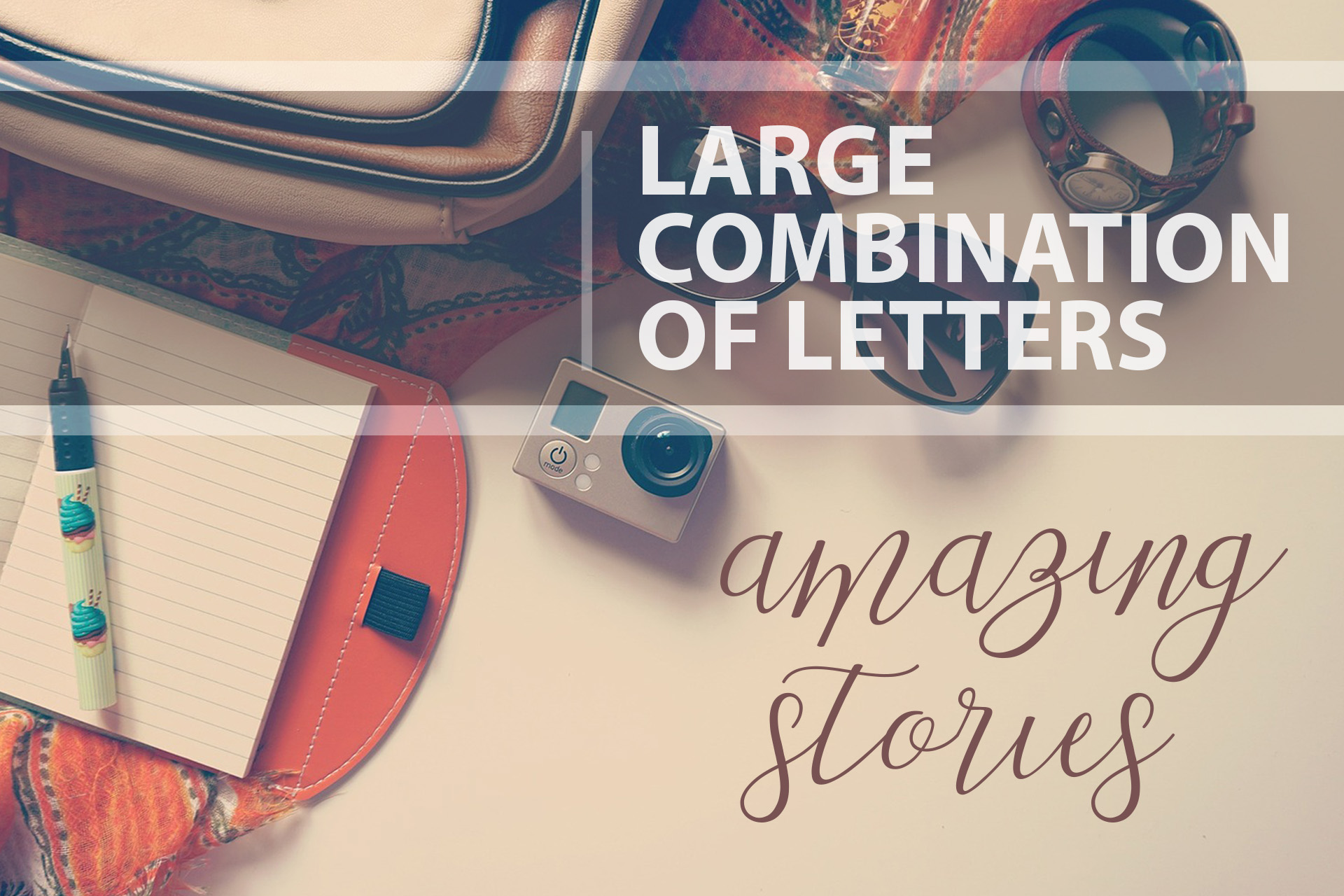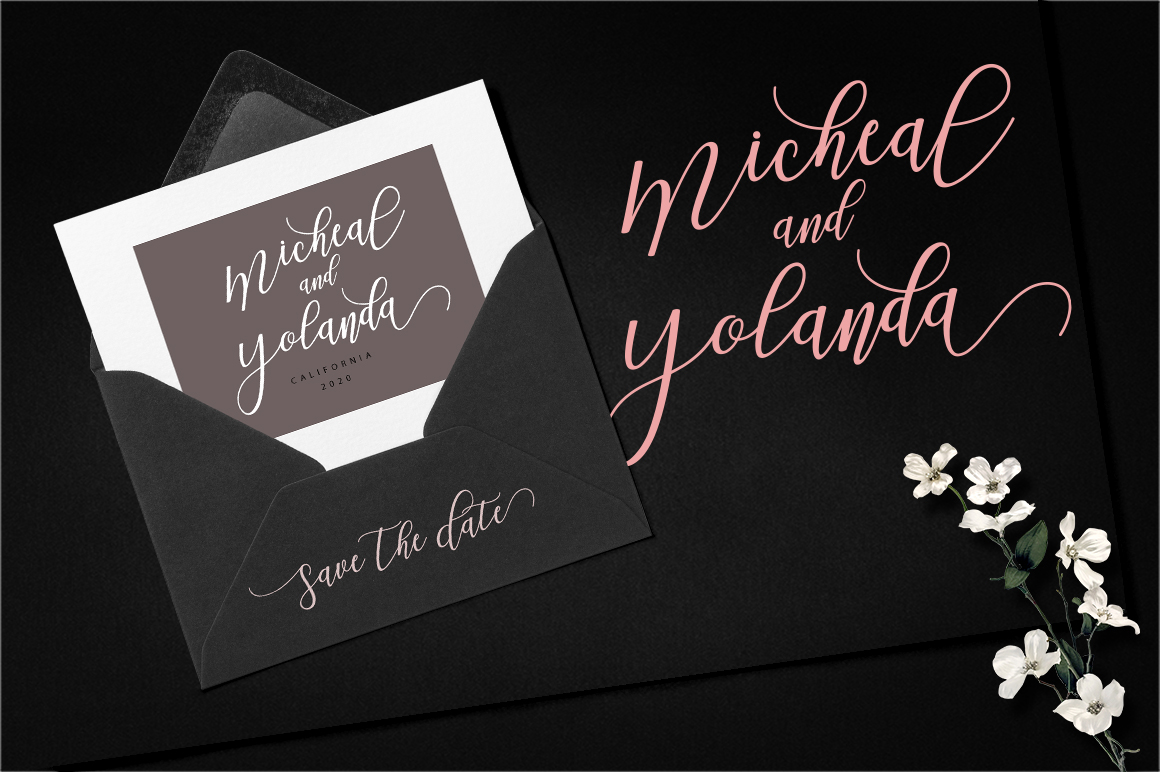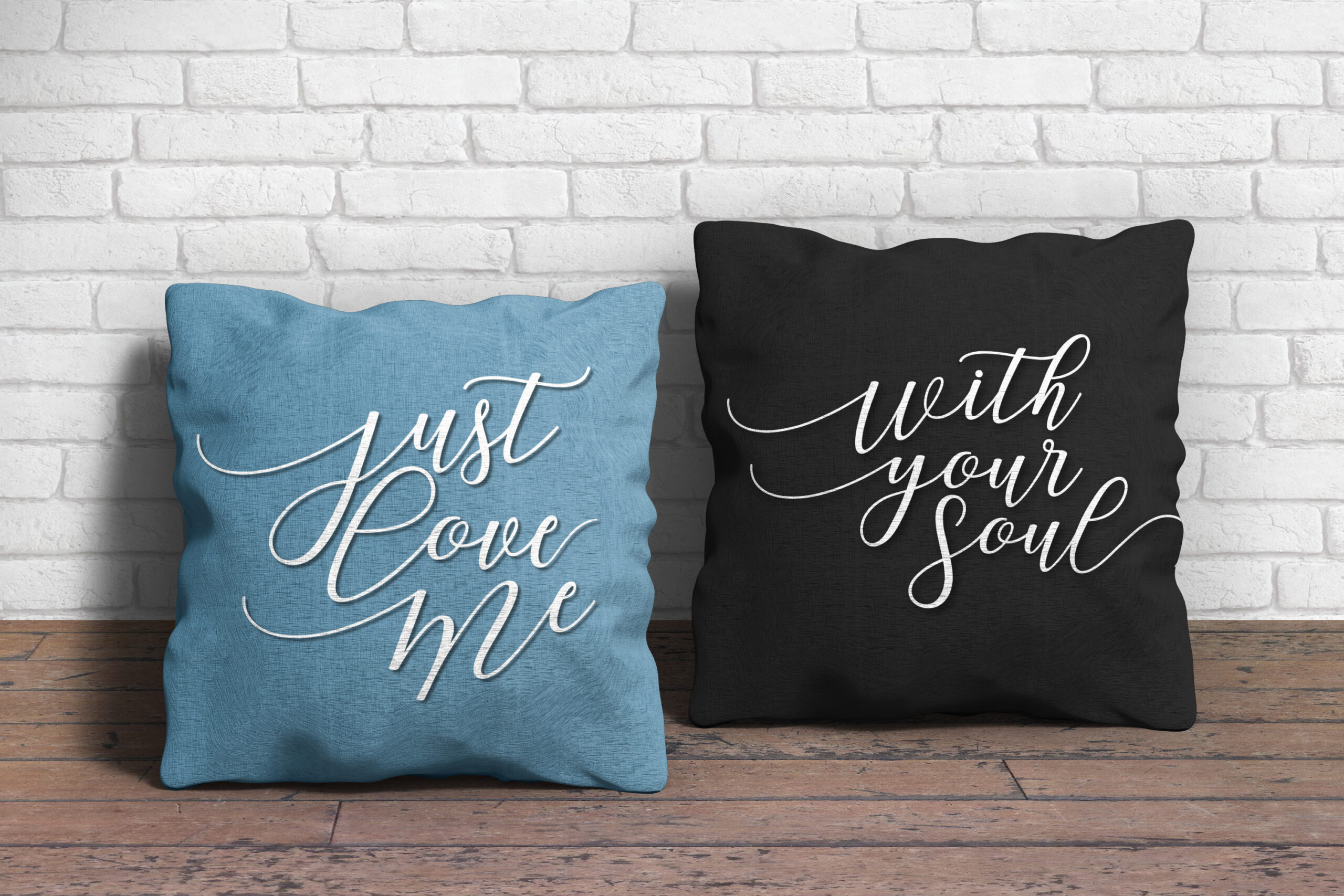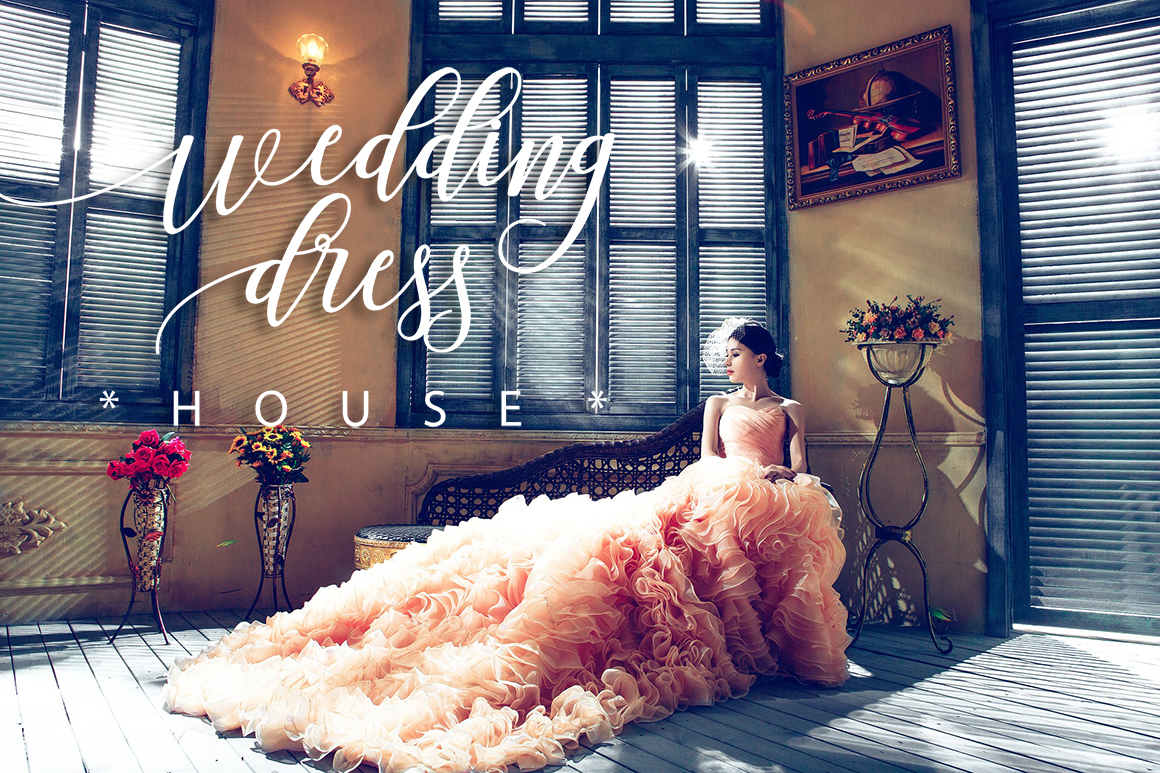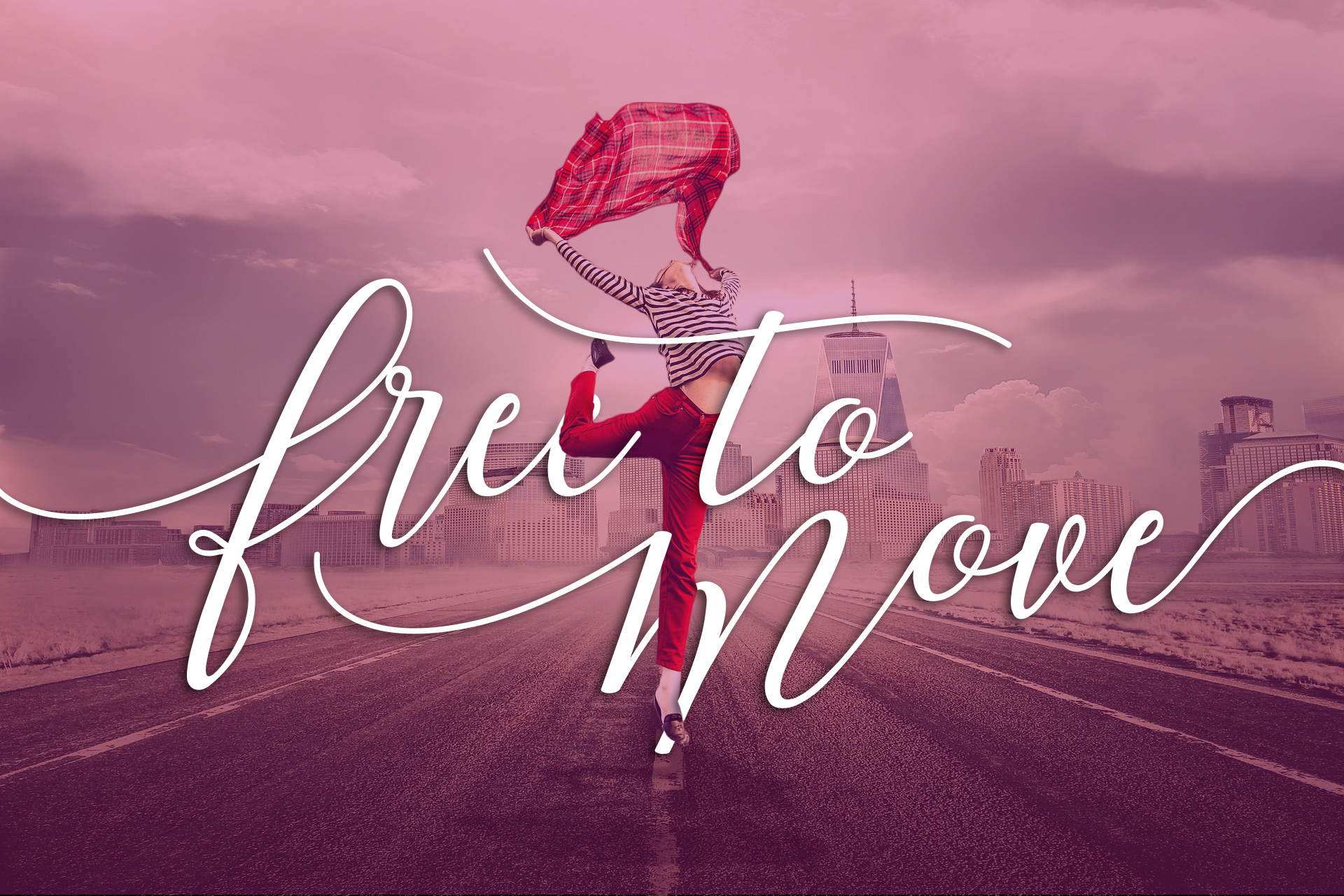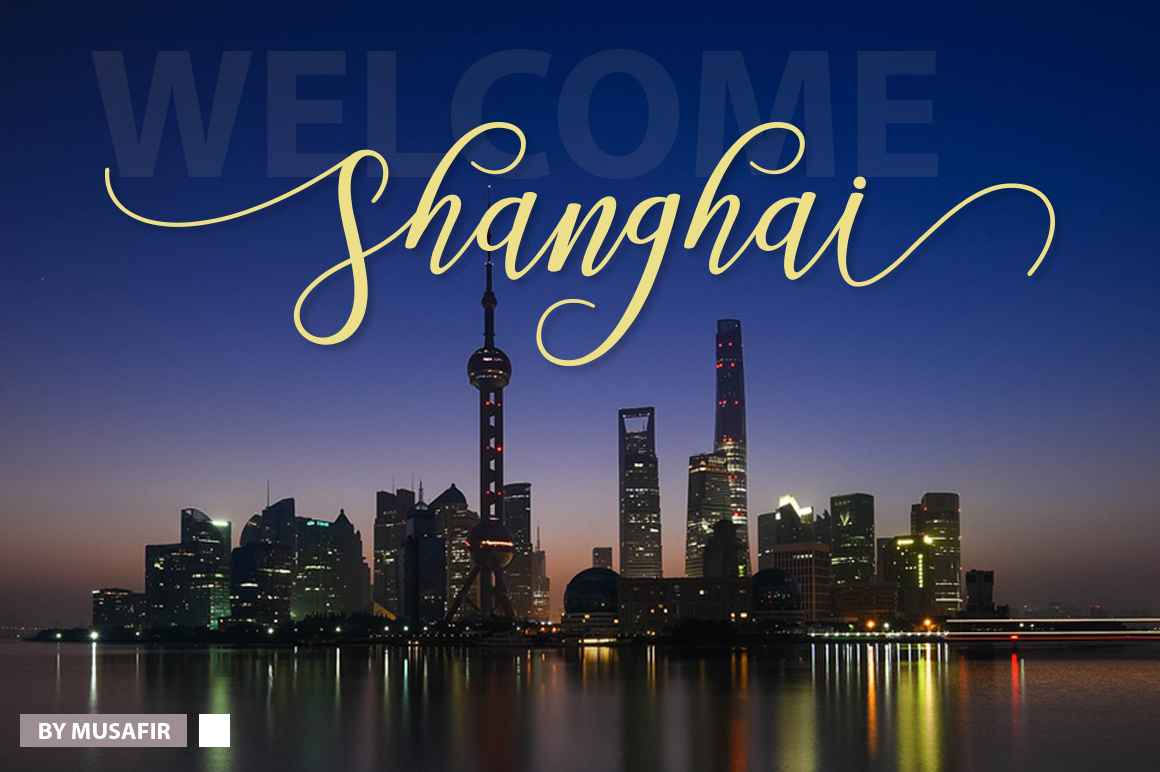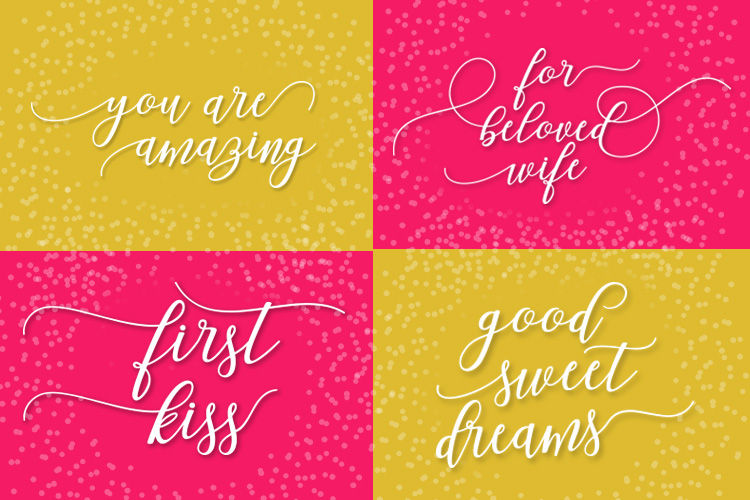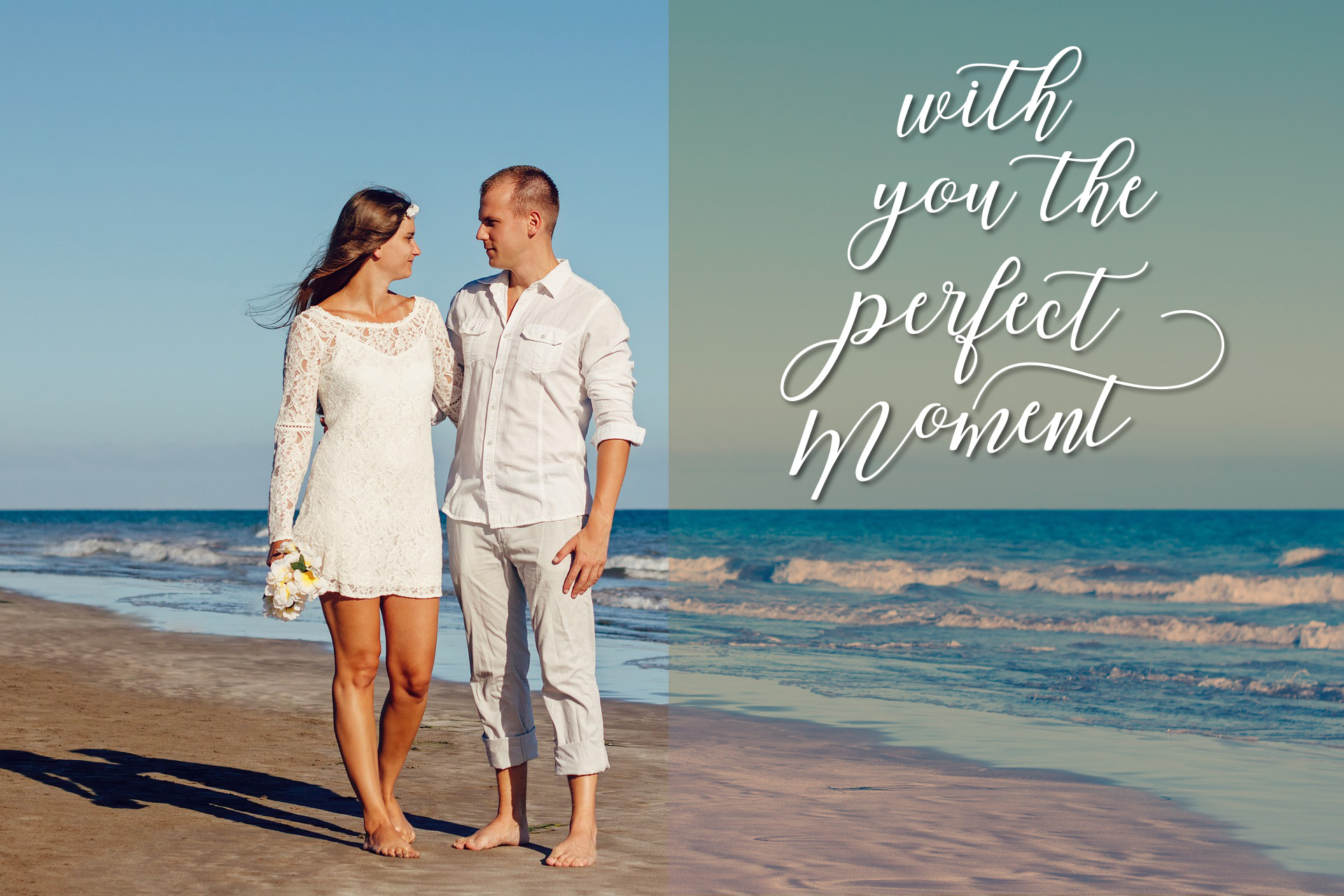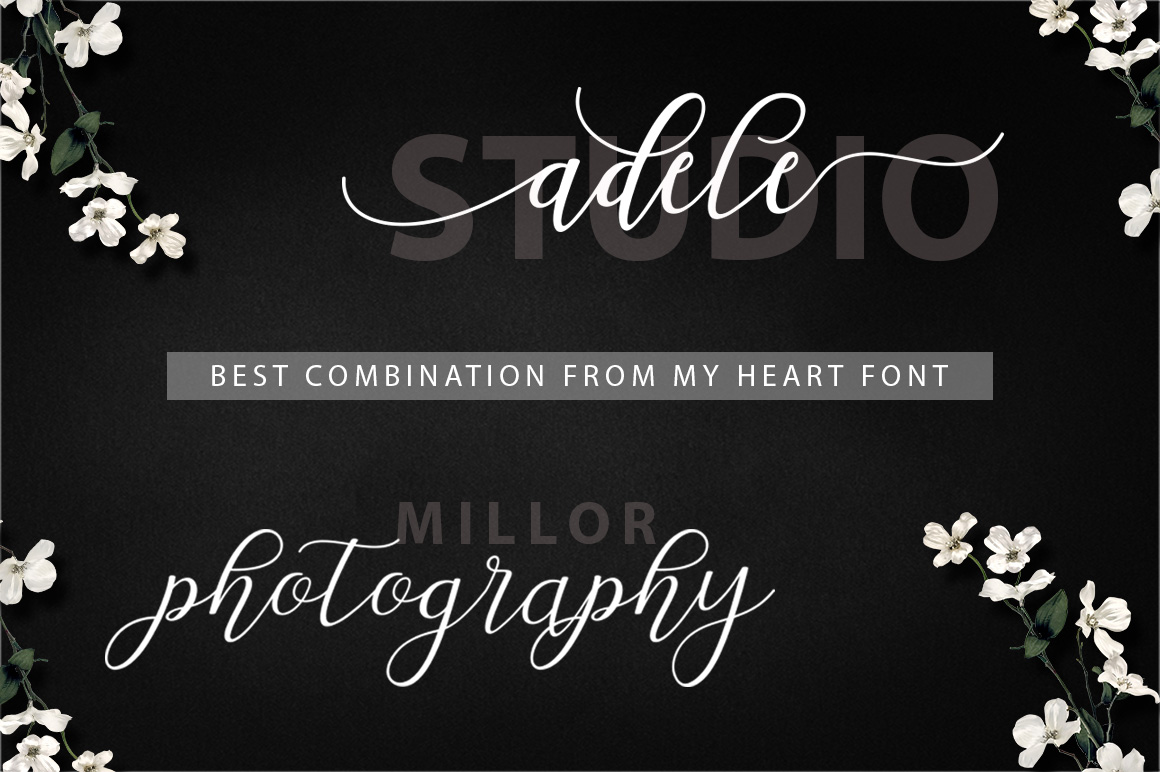
My Heart Font
About My Heart Font
My Heart is a feminine and delicate script font, perfect for enhancing your more romantically intended designs. With a dancing baseline and gorgeous flourish, this font will be a go-to for many projects.